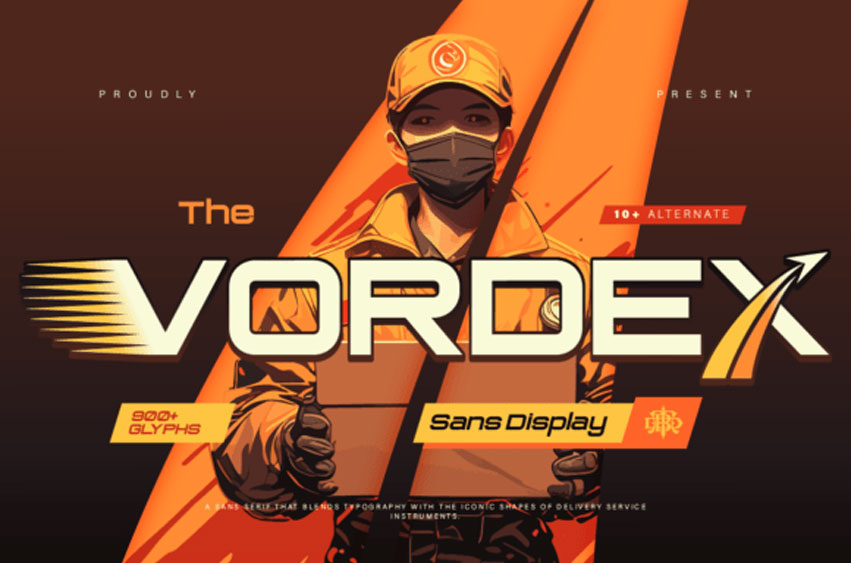
Vordex Sans Font
Vordex Sans Font is a bold and modern sans display font inspired by the fast paced world of logistics and delivery. Designed with strong geometric shapes and dynamic cuts, this font brings a sense of speed, efficiency, and reliability into your designs.
Perfect for adding motion and energy to your text just like a package moving fast to its destination.
This font is perfect for:
* Logistics & delivery branding
* Shipping companies & warehouse visuals
* Esports & gaming titles
* Tech and startup designs
* Posters, headlines, and social media graphics
With its clean yet playful character, Vordex delivers a unique balance between professional and fun, making your design stand out while still looking sharp and modern.